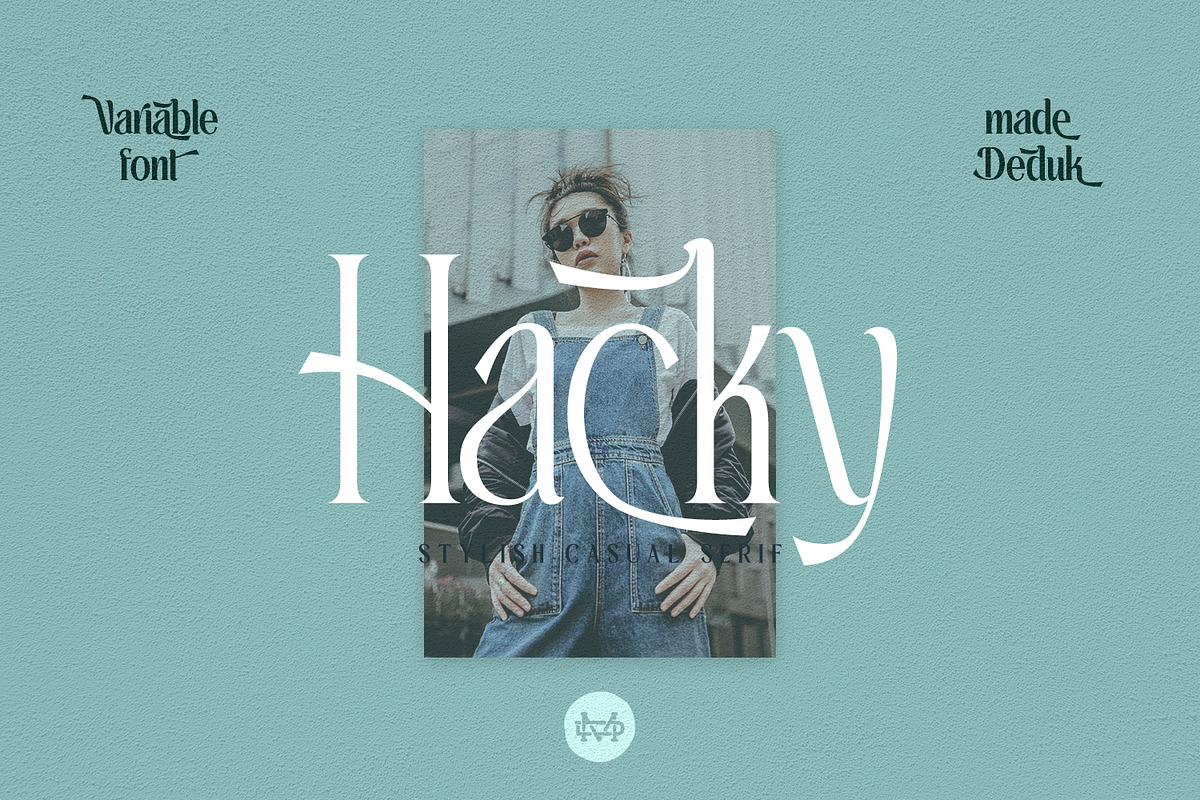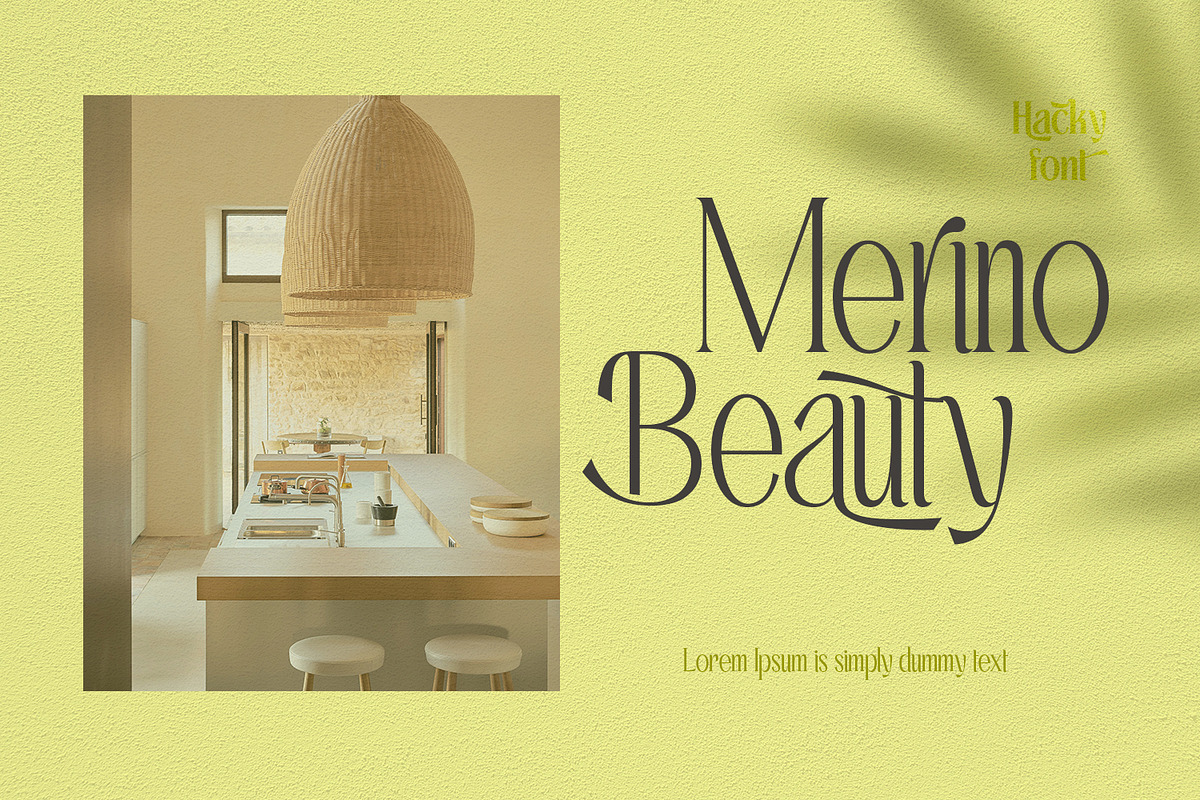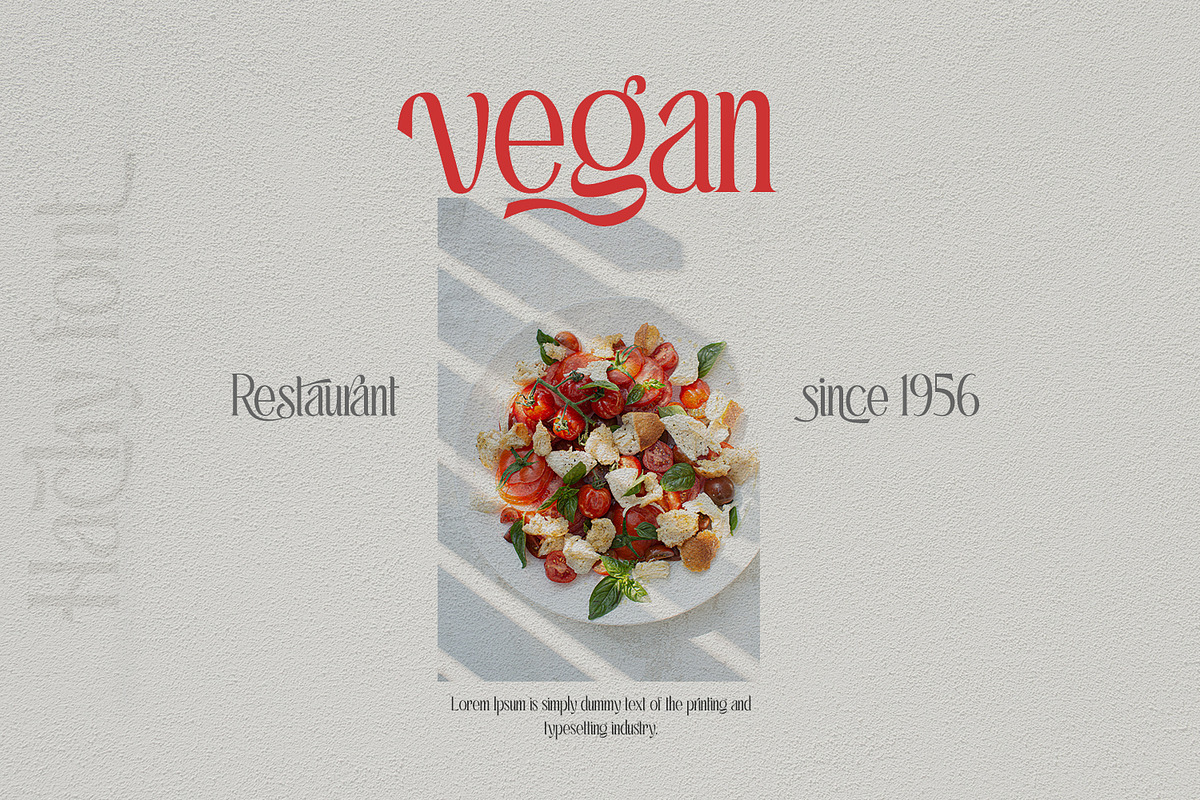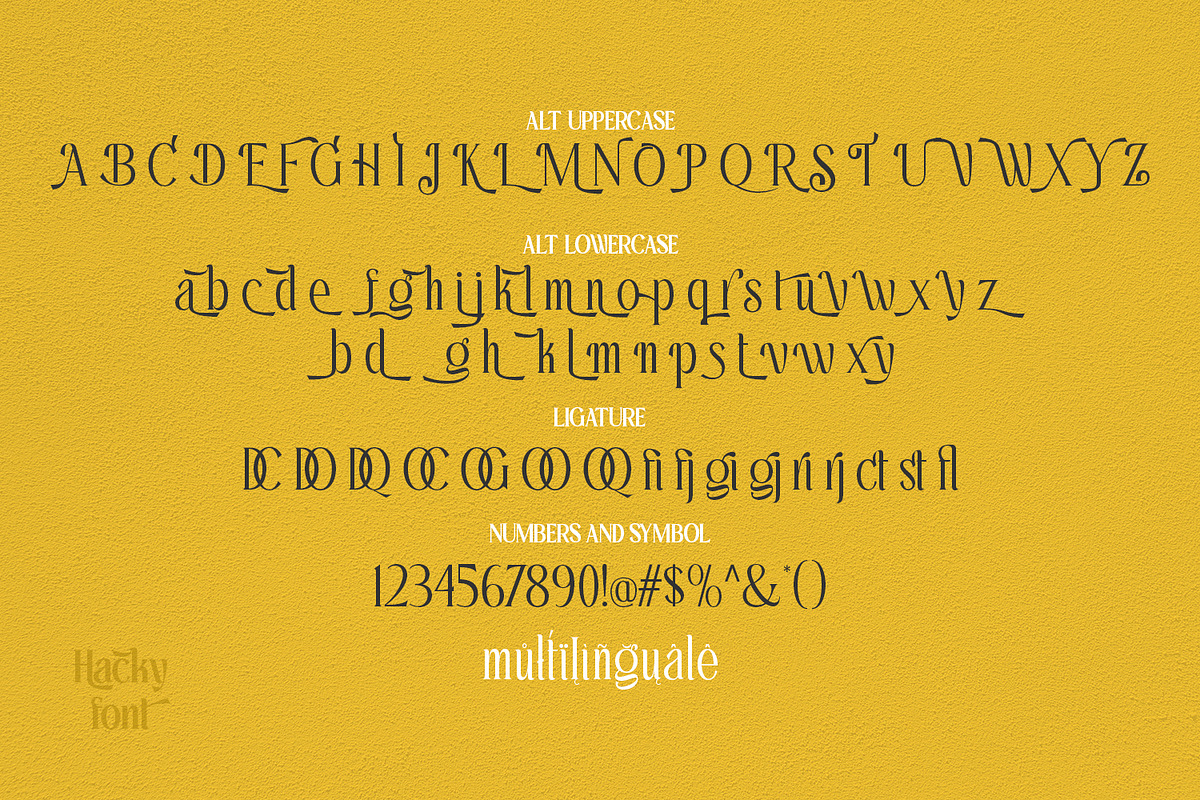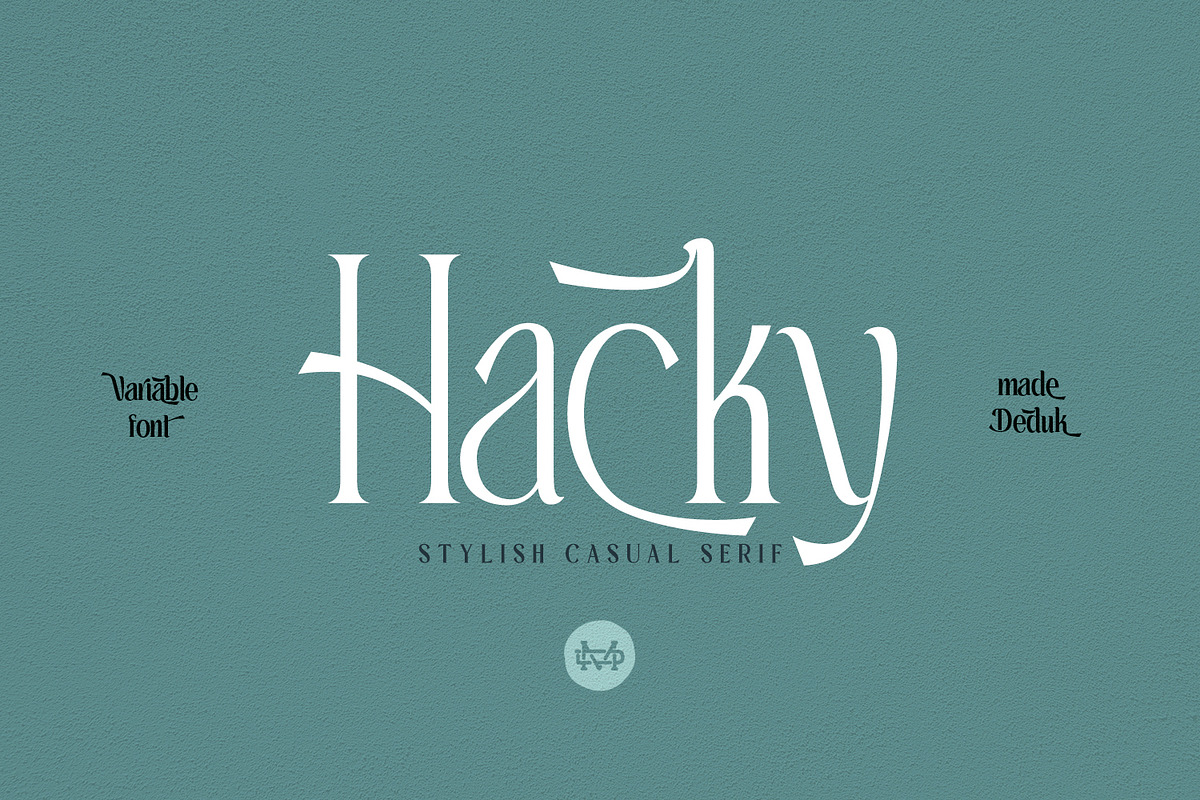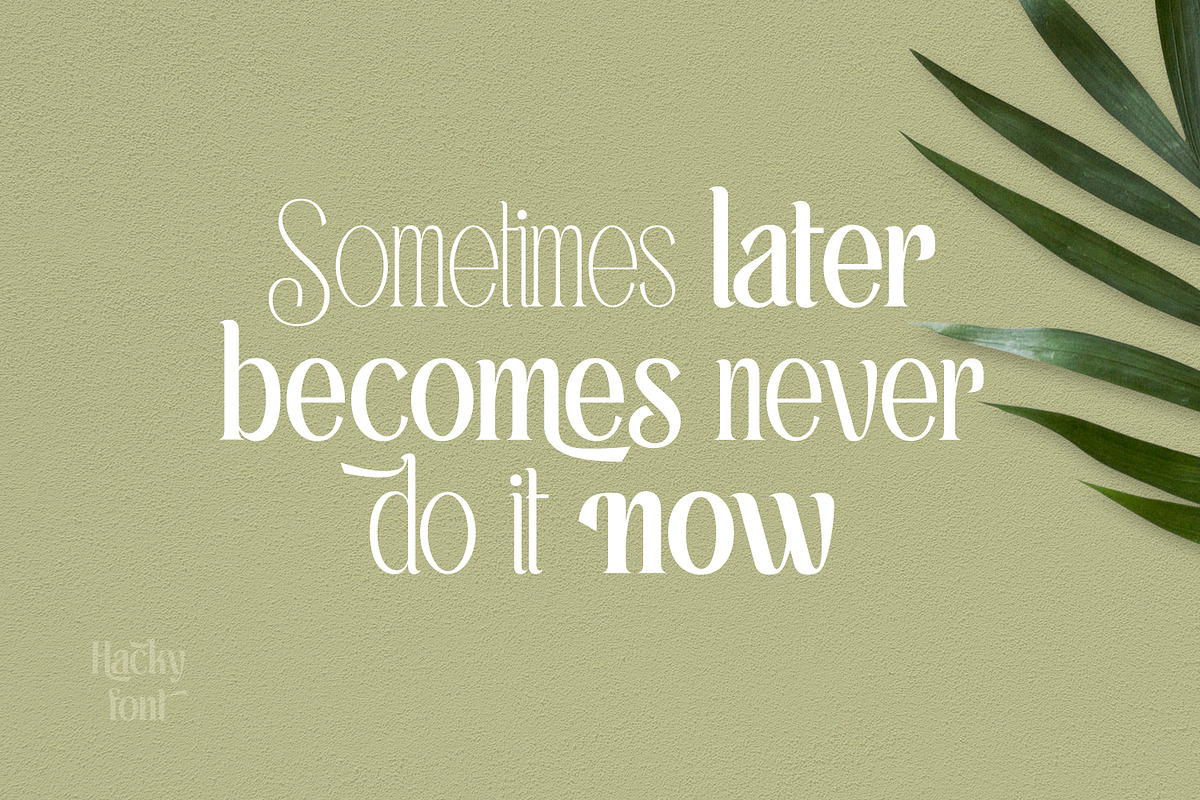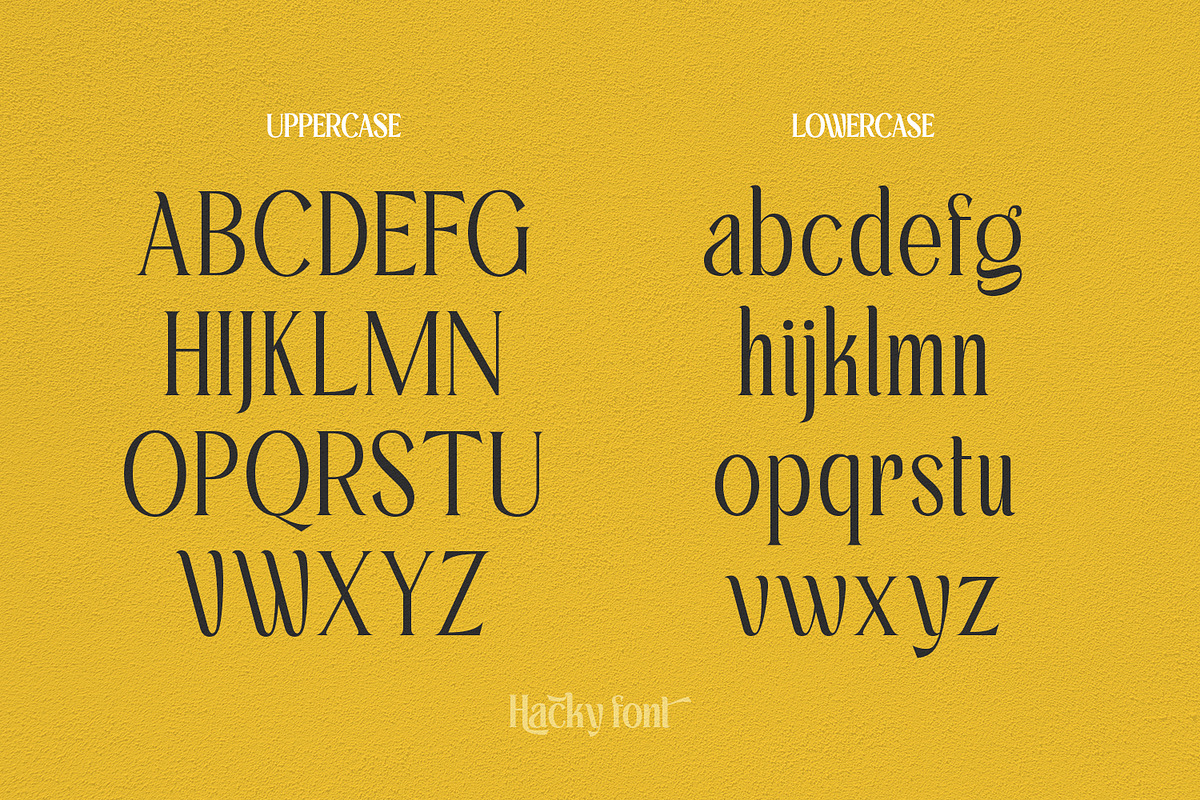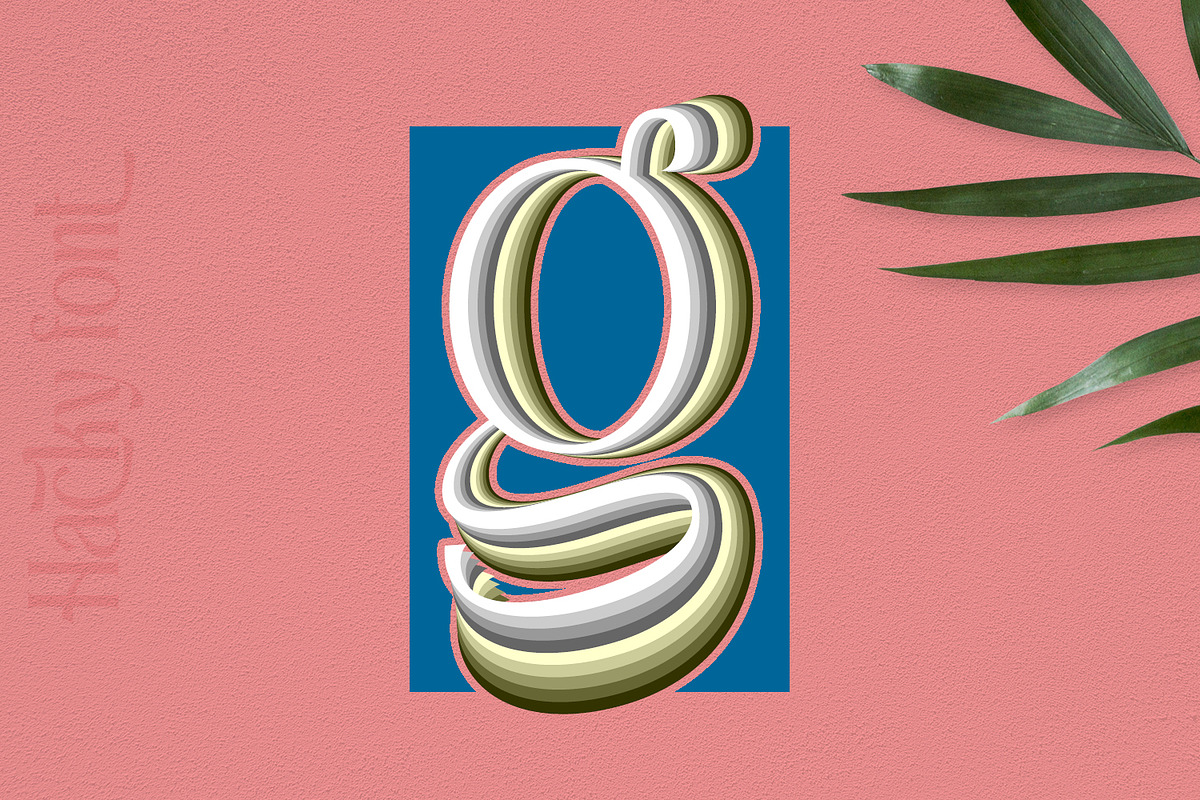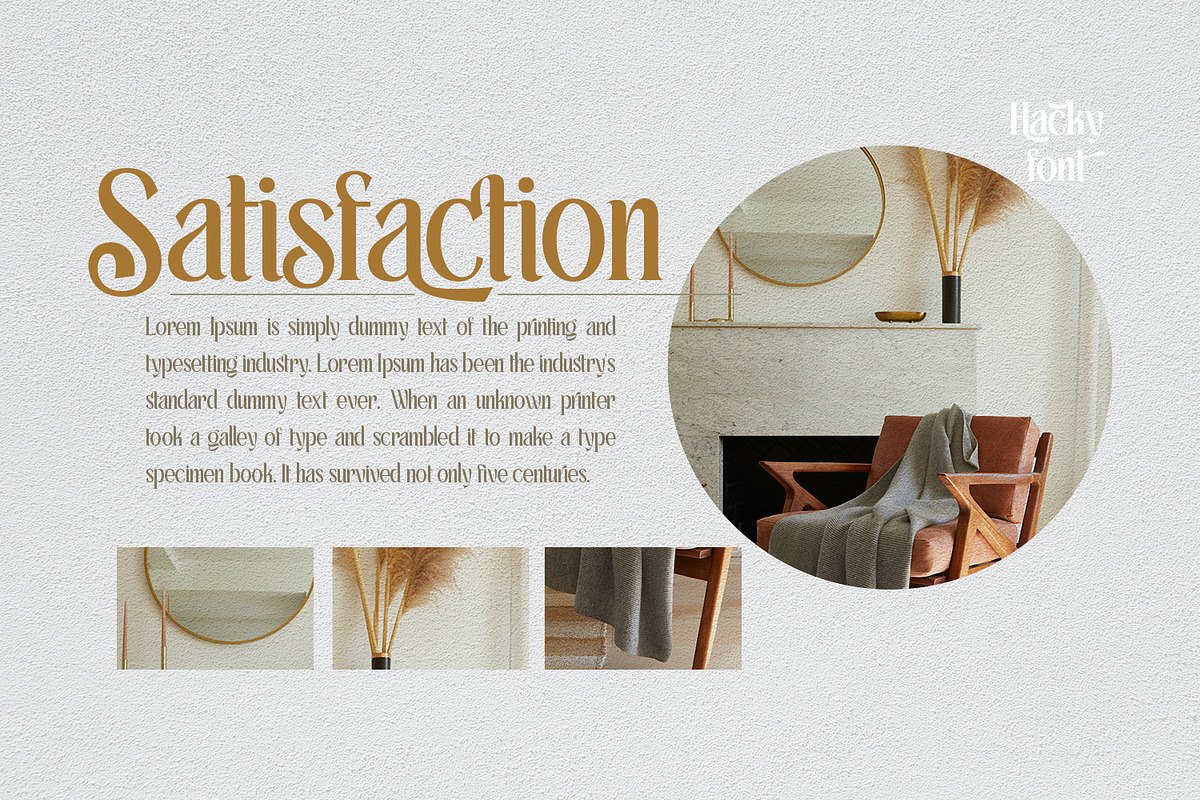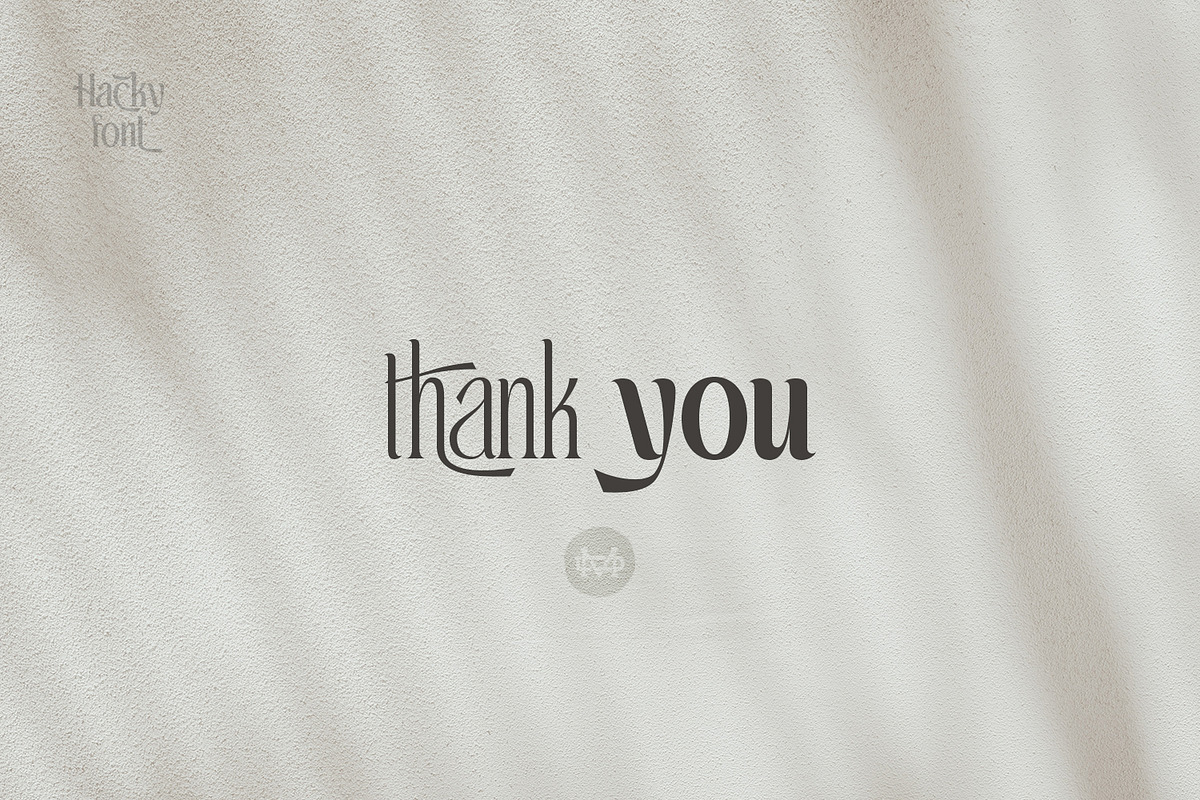
Hacky - Luxury Serif Family
Hacky is a stylish luxury serif family. It's clean and have the smooth angle with 9 variable weight and much alternative inside. Suitable to create any branding, product packaging, invitation, quotes, t-shirt, label, poster, logo etc.
- International Glyphs